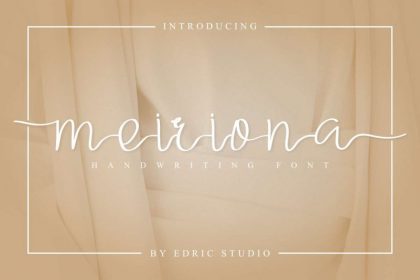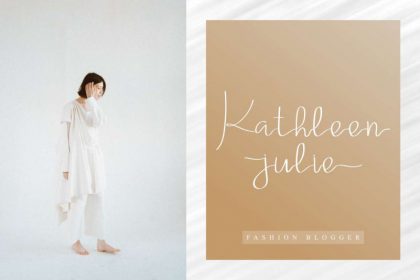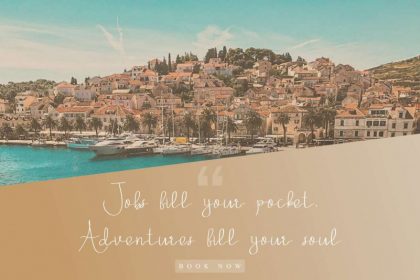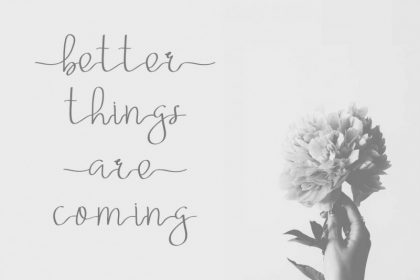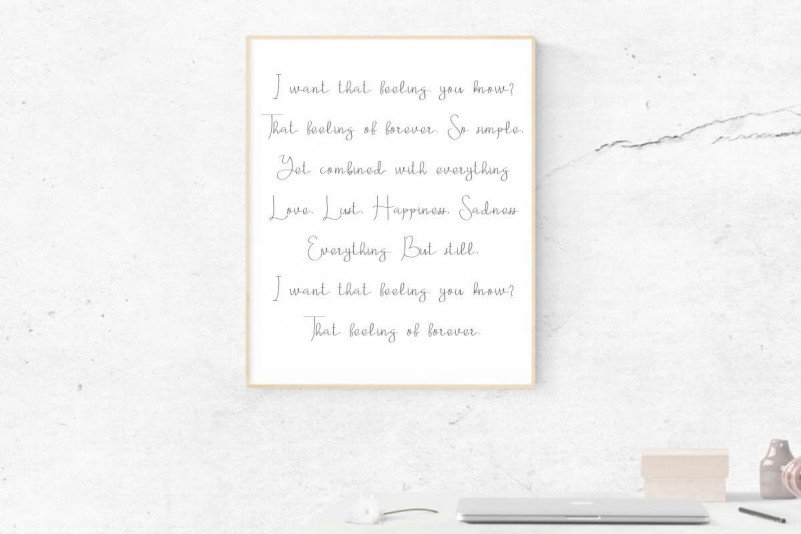
Meiriona Handwriting Font
Meiriona Handwriting Font was made in 2019 and launched in 2020. This is a handwriting font with natural glyphs style. It’s categorized as a script font. It will be awesome for any display works and also still readable for a paragraph writing.
Meiriona Font has two alternatives styles for each lower case characters. On another words you will get : a, a1 and a2. This font is also completed with international characters. With your idea, this font will bring unlimited creative creations.